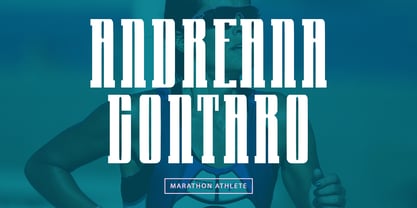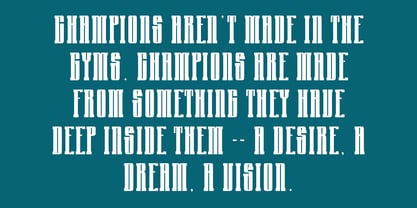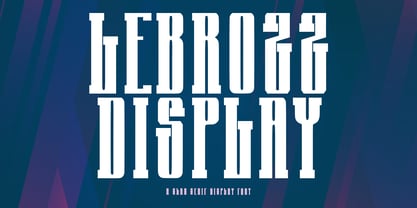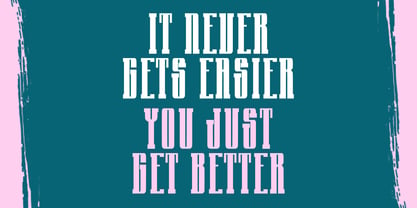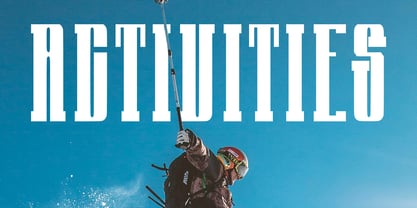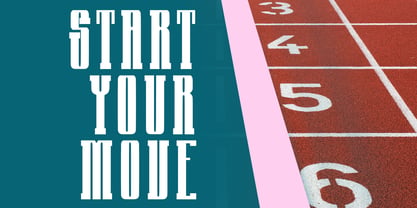
MC Lebrozz
von Maulana Creative
Die Schriftfamilie MC Lebrozz wurde von Gilang Maulana entworfen und von Maulana Creative veröffentlicht. MC Lebrozz enthält 1 Stile. Mehr über diese Familie
Lebrozz is a Slab Serif Bold Display Font. fun character with a bit sharp stroke. To give you an extra creative work. Lebrozz font support multilingual more than 100+ language. This font is good for Headline, logo design, Social media, Movie Titles, Books Titles, a short text even a long text letter and good for your secondary text font with sans or serif. Make a stunning work with Lebrozz font.
Designer: Gilang Maulana
Foundry: Maulana Creative